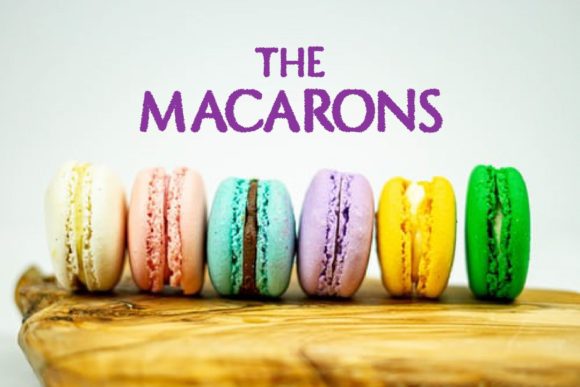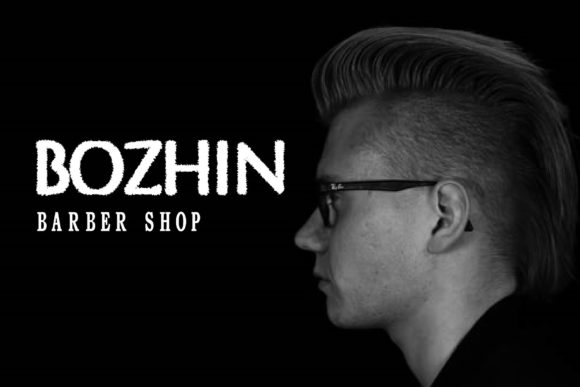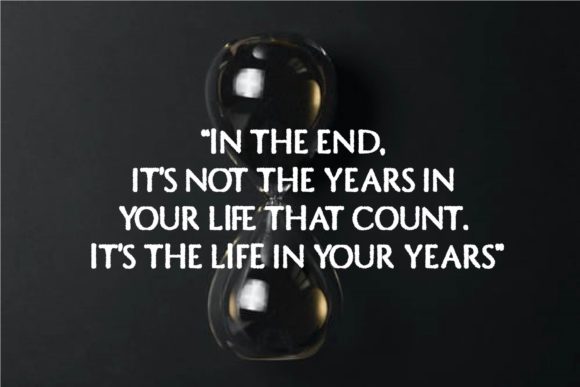
Introduction to Jiger Font
Have you ever stared at a blank page, trying to come up with the perfect design for a project, only to be met with a wave of creative block? You’re not alone. We’ve all been there. But what if you had the perfect tool to spark your imagination and take your designs to the next level?
That’s where the Jiger Font comes in – a high-quality, versatile display font designed to elevate your creative projects. With its sleek, modern aesthetic and transparent background, this design resource is perfect for branding, product packaging, invitations, quotes, t-shirts, labels, posters, or any logo you want to develop.
Key Features of Jiger Font
- High-quality font design for creative projects, perfect for designers and artists
- Unique, hand-crafted design with a transparent background for seamless integration
- Perfect for use in graphic design, digital art, and other creative projects that require a high-quality font
- Resolution: 300 DPI, ensuring crisp and clear text display
- Designed to be versatile and adaptable for use in a variety of design contexts
Honest Review: Jiger Font
As a designer, I’m always on the lookout for high-quality design resources that can elevate my creative projects. The Jiger Font caught my attention with its unique and quirky style.
What works well with Jiger Font is its versatility. It’s perfect for creating eye-catching headings and titles, and its transparent background makes it easy to overlay on images or other design elements. ✨ I also appreciate the font’s high quality, which ensures that it looks great on both digital and print materials.
Here are some of the features that make Jiger Font stand out:
- Unique and quirky style
- Transparent background for easy overlay
- High-quality design for both digital and print materials
However, there are some limitations to consider. ⚠️ The font may not be suitable for formal or corporate designs, as its style can come across as too playful or informal. Additionally, the font may not be compatible with all operating systems or software.
Overall, I’m impressed with Jiger Font and its potential to add a touch of personality to creative projects. With its unique style and high quality, it’s a great addition to any design resource collection.
Tips for Getting the Most Out of Jiger Font
To get the most out of Jiger Font, use it with a transparent background to create a clean and minimalist design. Experiment with different font sizes and styles to create a unique look.
Jiger Font is a versatile font that can be used in a variety of creative projects, including logos, business cards, and social media graphics. Its high quality and unique design make it a great choice for designers looking to add a touch of elegance to their work.